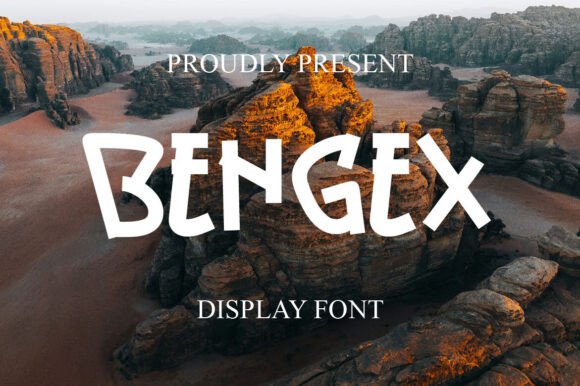
Discover the Power of Bengex Font: Elevate Your Designs with Modern Flair
I’ll never forget the time I was working on a branding project for a trendy new coffee shop. My client wanted a font that was modern, sleek, and would stand out on their packaging and marketing materials. I spent hours scouring the internet for the perfect font, but nothing seemed quite right. That was until I stumbled upon the Bengex Font. ✨
This stunning display font has been a game-changer for my design work, and I’m excited to share it with you. With its unique characters, sleek lines, and contemporary vibe, Bengex Font is perfect for adding a touch of sophistication to any project.
An Honest Review of Bengex Font
• ✨ Unique and modern design that’s sure to turn heads
• ✅ Sleek lines and contemporary vibe perfect for branding and headlines
• ✅ Extensive character set with OpenType features and Glyphs panel support
While Bengex Font is an amazing addition to any design project, there are a few things to keep in mind: 🤔
• ⚠️ Some users may find the font a bit too bold for certain applications
• ⚠️ May require some experimentation to get the most out of OpenType features and Glyphs panel
The Story Behind Bengex Font
Bengex Font was designed with the modern designer in mind. Its creator, a talented typographer, wanted to craft a font that would be both stylish and versatile. With its unique characters and sleek lines, Bengex Font is the perfect addition to any design project.
Is Bengex Font suitable for body text? While Bengex Font is a beautiful font, it’s best suited for headlines and display text. For body text, you may want to consider a font with better readability.